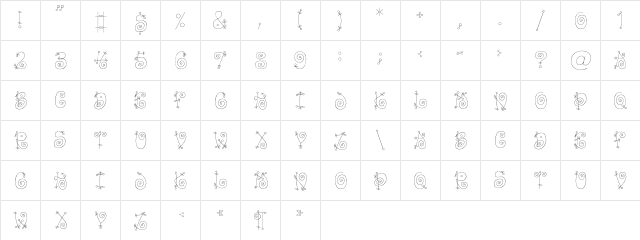
FunnyLightC Regular
Design Context for FunnyLightC Typeface
FunnyLightC trades formality for fun, with bouncy, characterful letterforms that bring warmth and energy to any project.
Font Pairing: Pairs well with a rounded or humanist sans for body copy, maintaining the friendly tone without relying on FunnyLightC to carry extended reading.
Pro Tip: Use FunnyLightC at larger display sizes where its expressive character can land. Pair with a clean, simple sans for body copy to maintain readability.